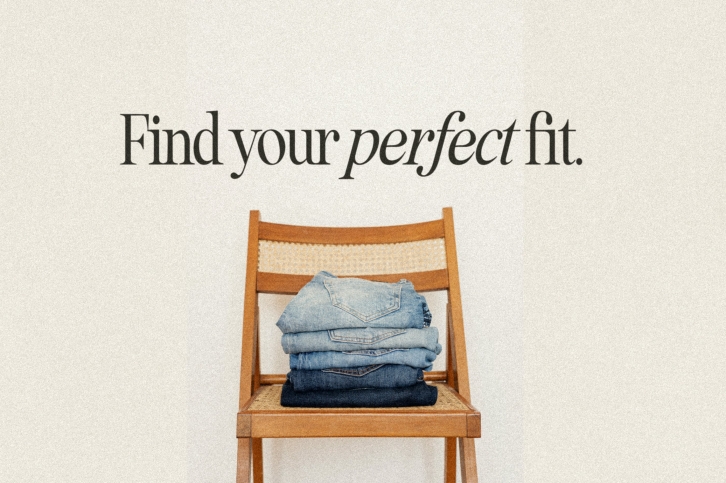
My second Retro-Inspired font this month :) - I've been working on a series of Vintage Magazine inspired fonts for about a year now - this is the second in the series which is finally ready, it will soon be followed with number three, also a serif, so stay tuned :)
Say hello to Serisouly Nostalgic! An eighties magazine inspired serif - with a complementary italic version :) Both come in two versions one with more contrast and crisper than the other. Looks Great in all caps too! No special software is required for this typeface - I hope you enjoy! And stay tuned for number three in the series :)